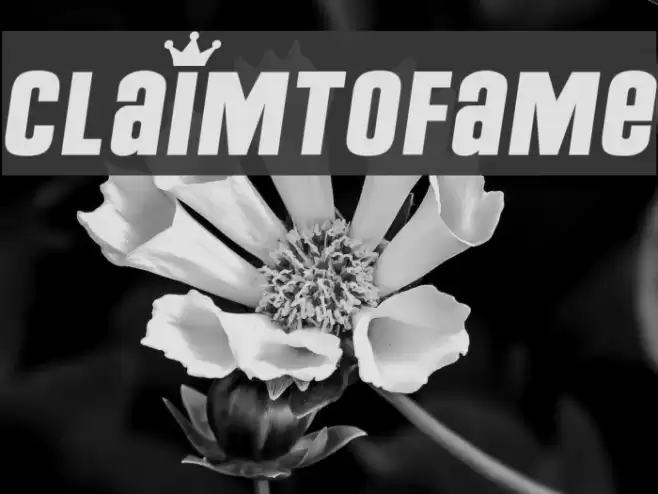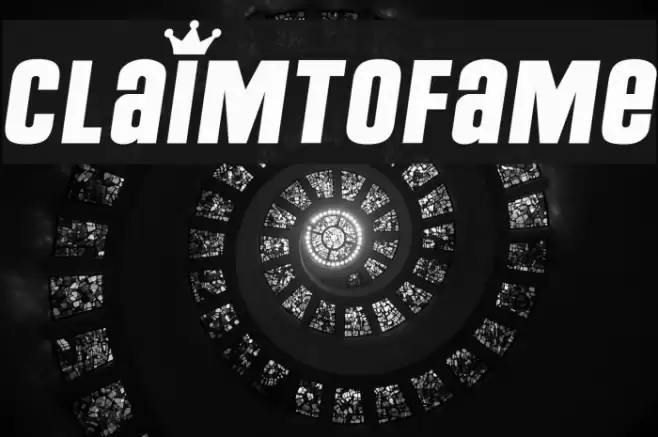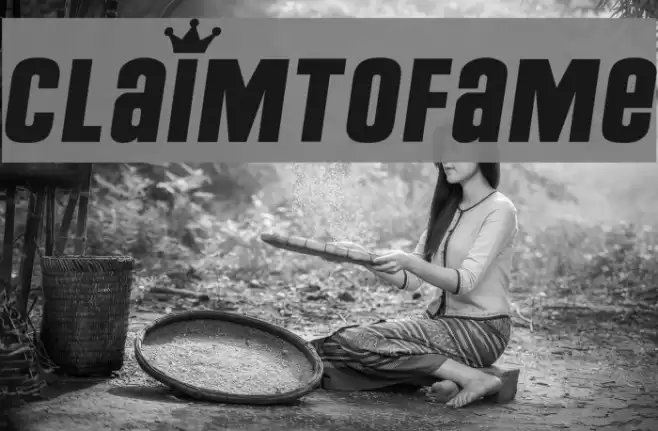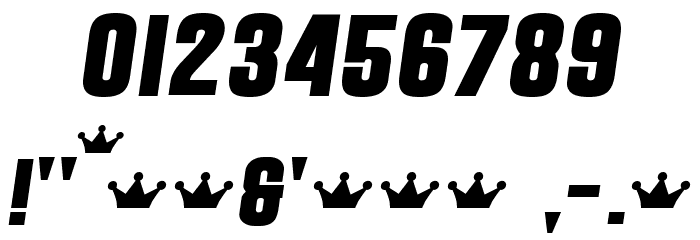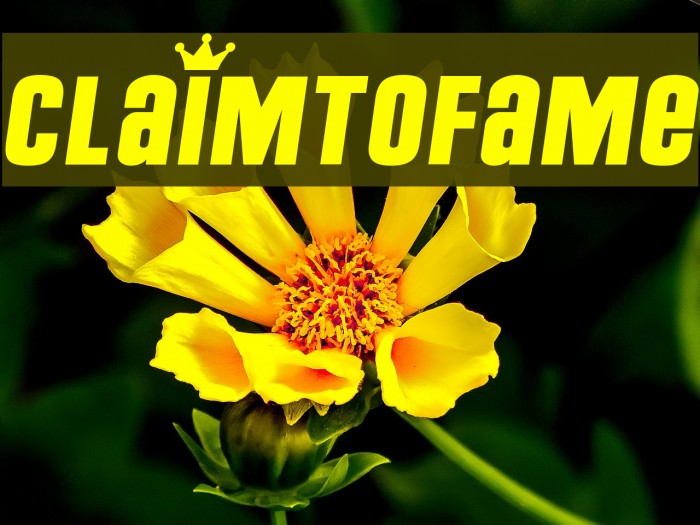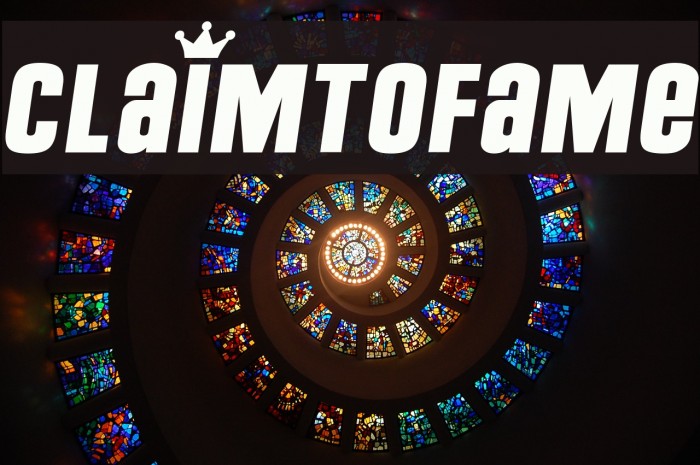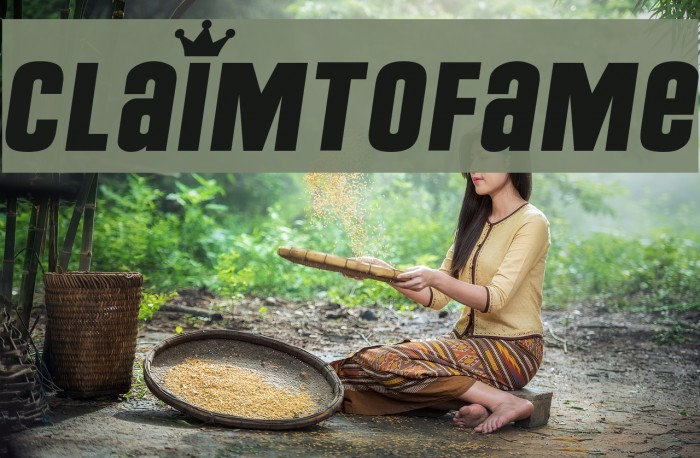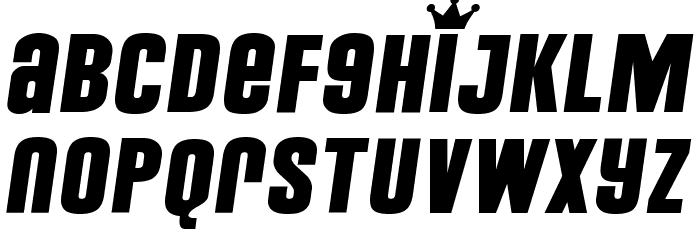
ClaimToFame Font
ClaimToFame Description
This font features a bold and dynamic style with a strong presence. The uppercase and lowercase letters are designed with a slight slant, giving them a sense of motion and energy. The characters are thick and robust, with a consistent stroke width that adds to their impactful appearance. The inclusion of crown symbols above certain letters and punctuation marks adds a unique decorative touch, suggesting a regal or prestigious theme. The numbers are equally bold, maintaining the overall aesthetic of strength and prominence. This font is well-suited for projects that require a commanding and eye-catching typeface.
A bold, dynamic font with a regal touch, featuring crown symbols and a strong presence from Uncategorized fonts.